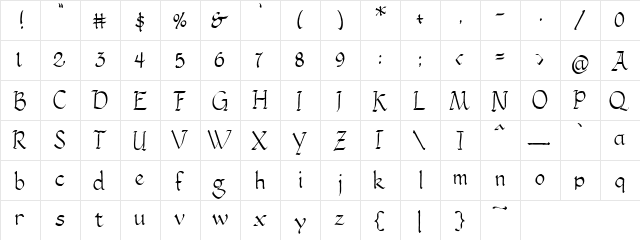
PC Foundation Hand Regular
Design Context for PC Foundation Hand Typeface
PC Foundation Hand brings a calligraphic fluidity to the page — its connecting strokes and expressive curves give it an unmistakably human quality.
Font Pairing: Combine PC Foundation Hand with a simple geometric sans for maximum contrast — the tension between flowing curves and clean structure is a classic typographic pairing.
Pro Tip: Use PC Foundation Hand for short runs of text — names, titles, or taglines. Extended body copy in script faces tires the eye quickly.